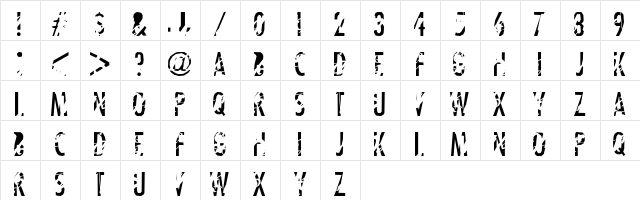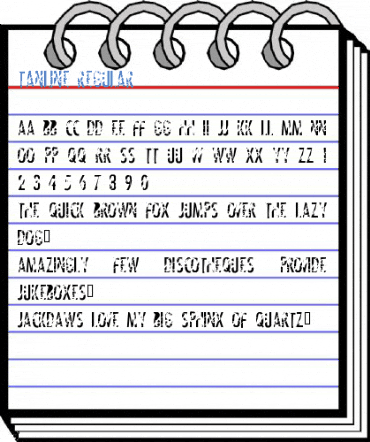
Tanline Regular Free Font
Tanline Regular
Design Context for Tanline
Tanline is a composed and adaptable typeface that performs quietly and consistently across a wide range of design contexts.